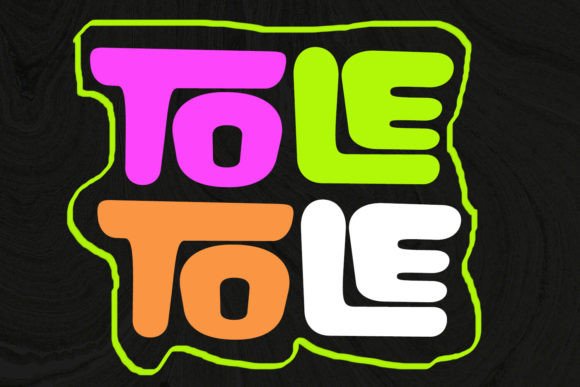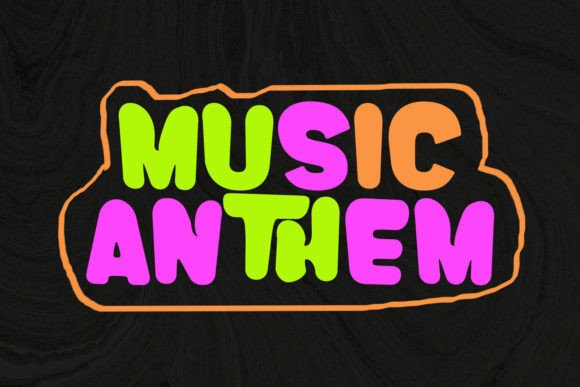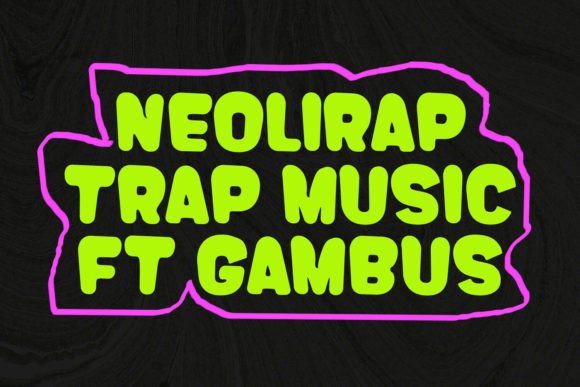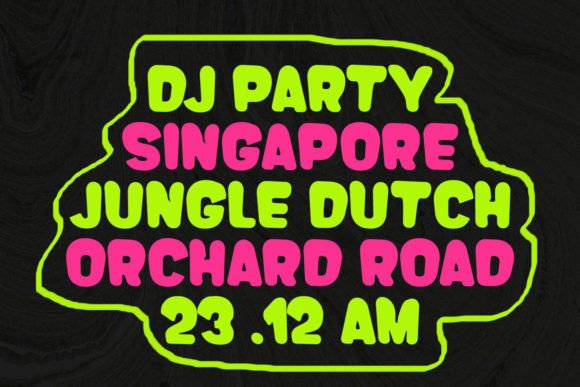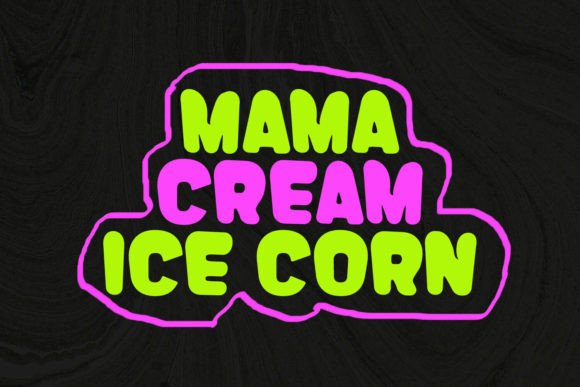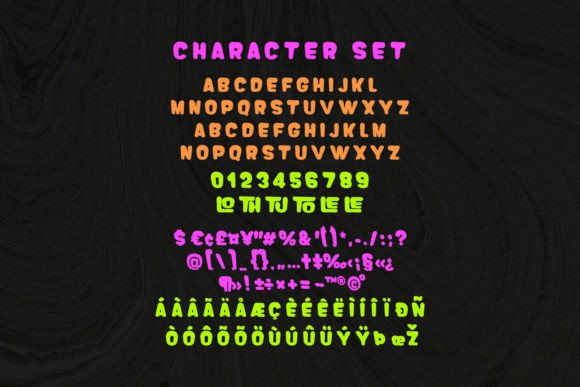
Cilegod Font: A Bold Display Font for Making a Statement
In the world of typography, fonts play a crucial role in conveying messages and making a lasting impression. For designers and crafters, finding the right font can be a daunting task, especially when it comes to creating eye-catching headlines, posters, and logos. This is where Cilegod Font comes in – a bold display font designed to make a statement. In this article, we’ll explore the features and benefits of Cilegod Font, and why it’s perfect for your next design project.
The Design of Cilegod Font
Cilegod Font is a bold display font that boasts a strong and eye-catching design. Its thick letters and clean lines ensure that your message stands out, making it perfect for headlines, posters, and logos. The font’s bold nature makes it ideal for designers who want to create a lasting impression and grab the attention of their audience. Whether you’re designing a poster, a logo, or a website, Cilegod Font is sure to make a statement.
Key Features of Cilegod Font
- Bold and Eye-Catching Design: Cilegod Font features a bold and eye-catching design that is sure to grab attention.
- Thick Letters and Clean Lines: The font’s thick letters and clean lines ensure that your message stands out and is easy to read.
- Perfect for Headlines and Posters: Cilegod Font is perfect for making a statement in headlines, posters, and logos.
- Easy to Read: Despite its bold nature, Cilegod Font is easy to read, making it perfect for a wide range of design projects.
Benefits of Using Cilegod Font
So, why should you use Cilegod Font for your next design project? Here are just a few benefits of using this amazing font:
- Grabs Attention: Cilegod Font is designed to grab attention and make a lasting impression.
- Increases Readability: The font’s clean lines and thick letters ensure that your message is easy to read and understand.
- Versatile: Cilegod Font is perfect for a wide range of design projects, from posters and logos to websites and social media graphics.
Who Can Benefit from Cilegod Font?
Cilegod Font is perfect for a wide range of designers and crafters, including:
- Graphic Designers: Graphic designers can use Cilegod Font to create eye-catching posters, logos, and brochures.
- Web Designers: Web designers can use Cilegod Font to create bold and eye-catching website headers and titles.
- Social Media Managers: Social media managers can use Cilegod Font to create engaging and eye-catching social media graphics.
- Crafters: Crafters can use Cilegod Font to create beautiful and eye-catching craft projects, such as signs, banners, and iron-on designs.
- What is Cilegod Font?: Cilegod Font is a bold display font designed for making a statement in headlines, posters, and logos.
- Is Cilegod Font easy to read?: Yes, despite its bold nature, Cilegod Font is easy to read and understand.